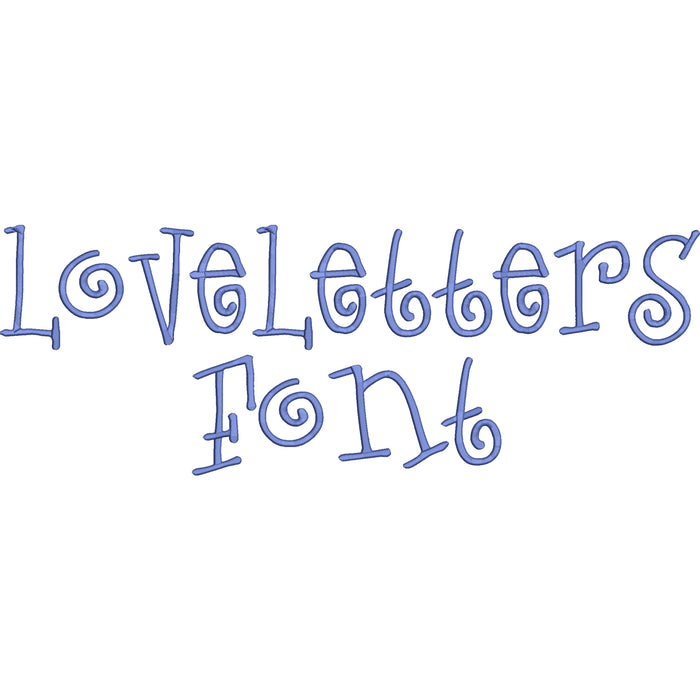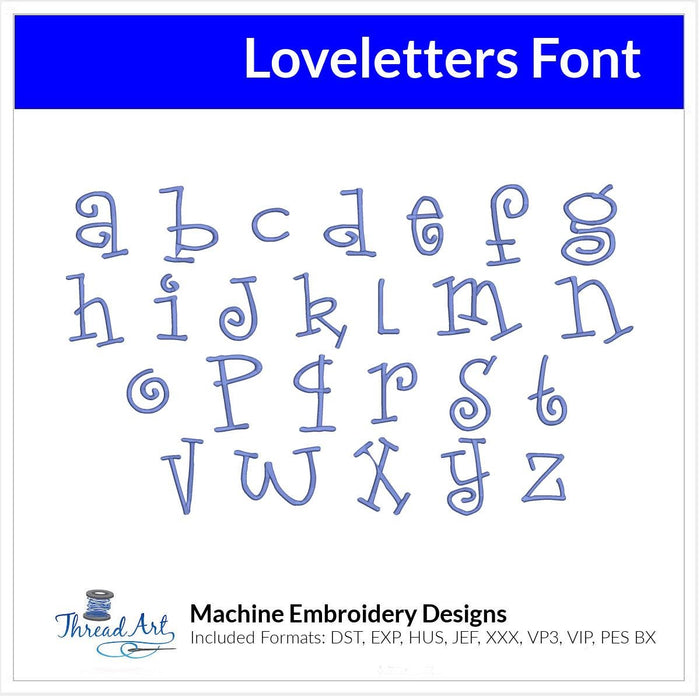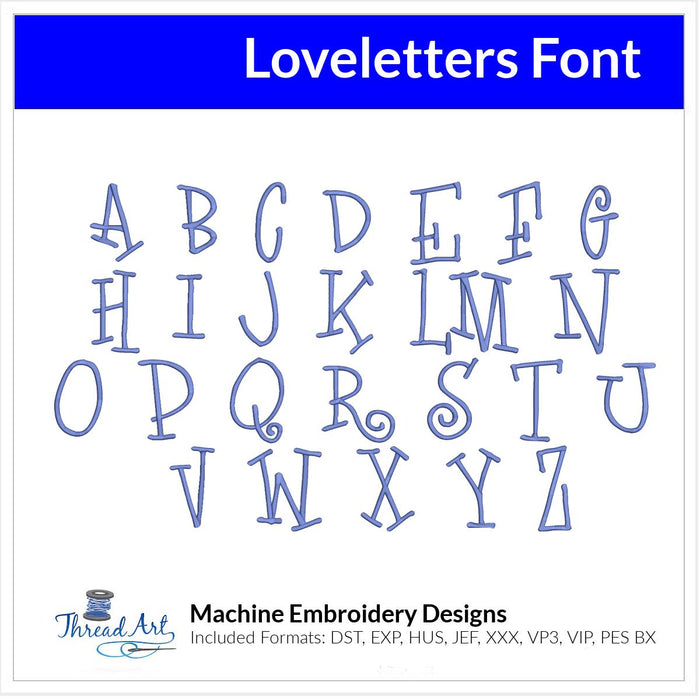
Loveletters Fun Font Design -- Machine embroidery font design set with different design sizes included. Letters are 1.5", 2" and 1" tall in popular formats: DST, EXP, HUS, JEF, PES, XXX, VIP, VP3, BX. Convenient for those with multiple machines. Designs will be available for instant download. Choose physical USB stick to have designs sent via mail on a usb stick. 1", 2" and1.5" are satin stitch.